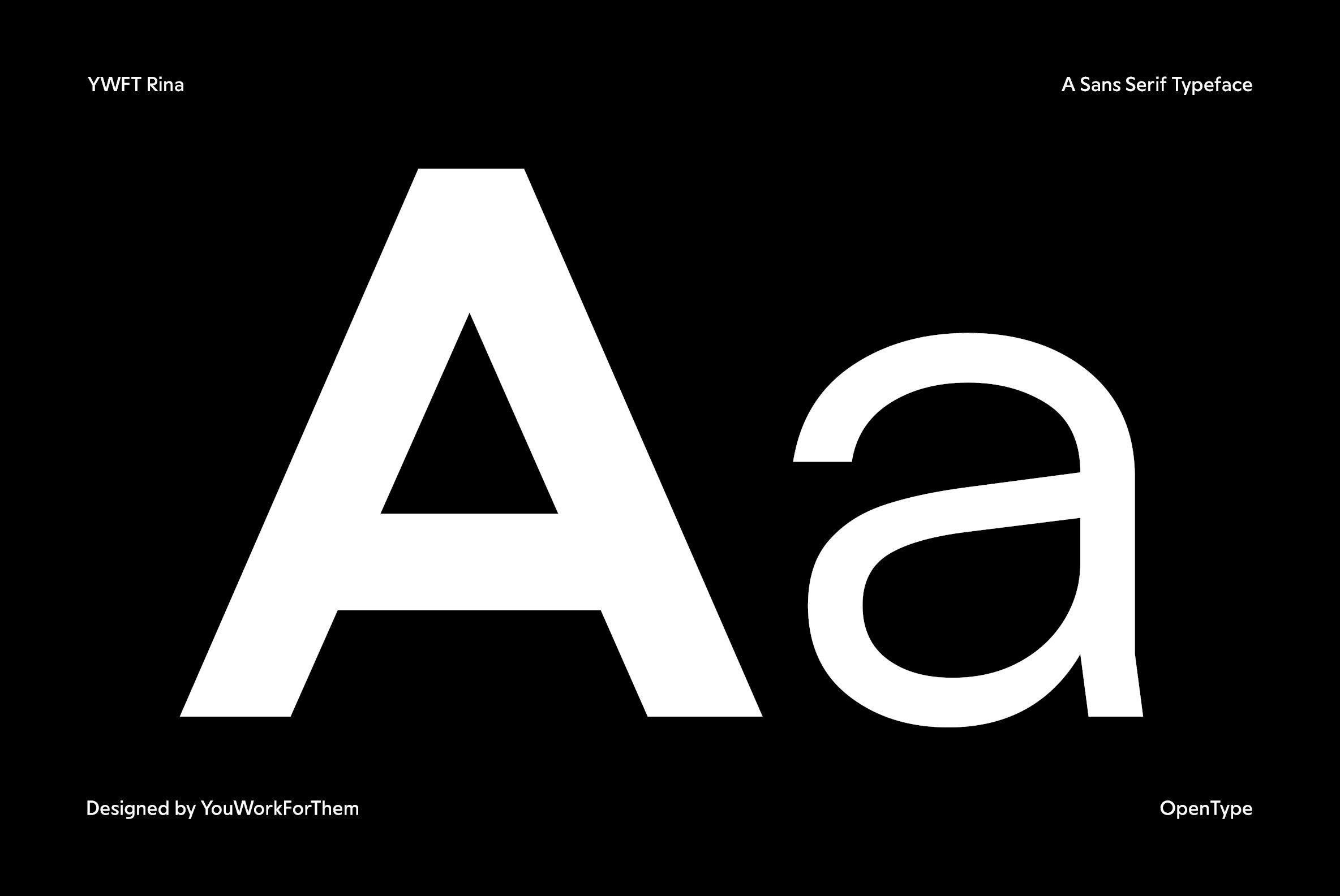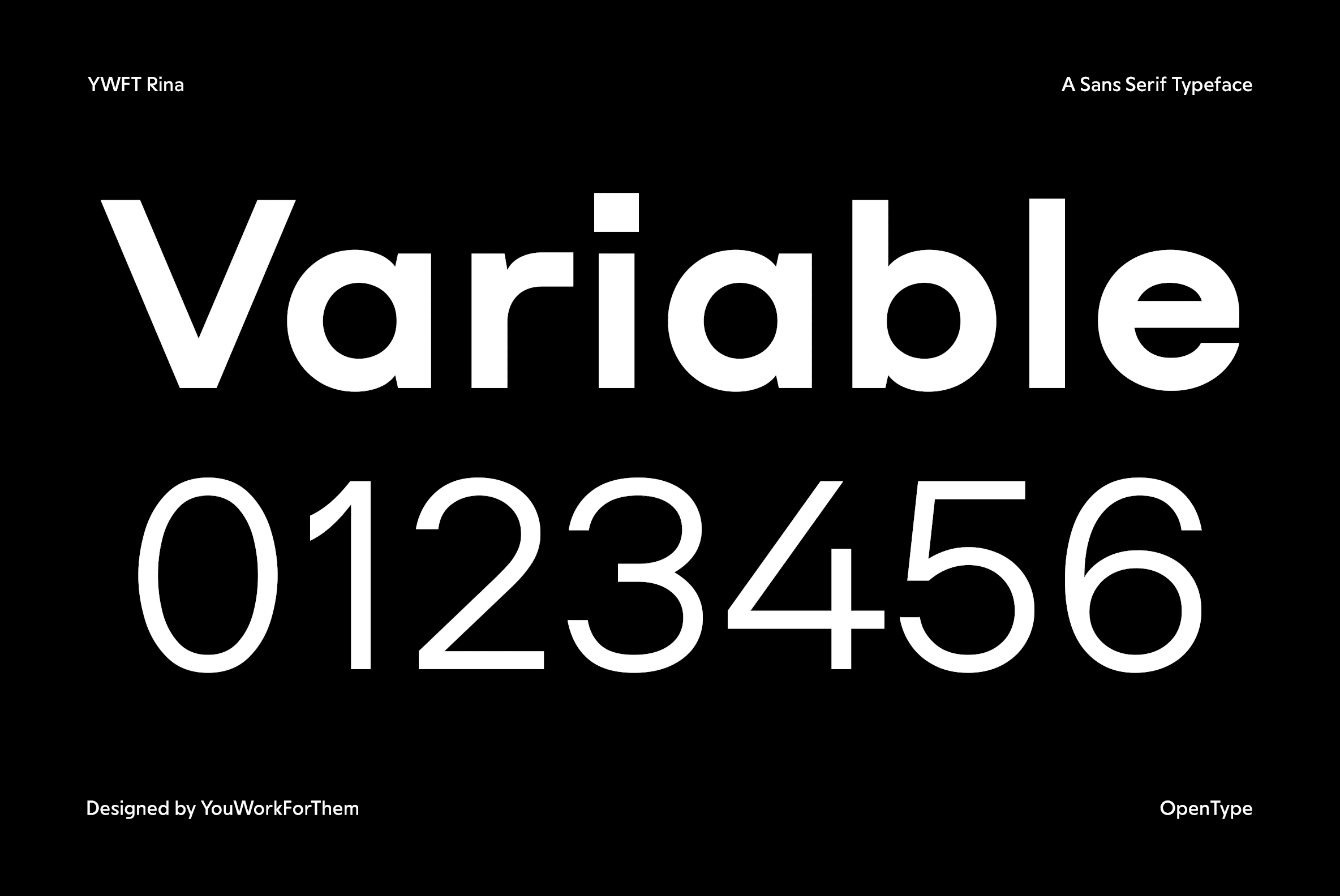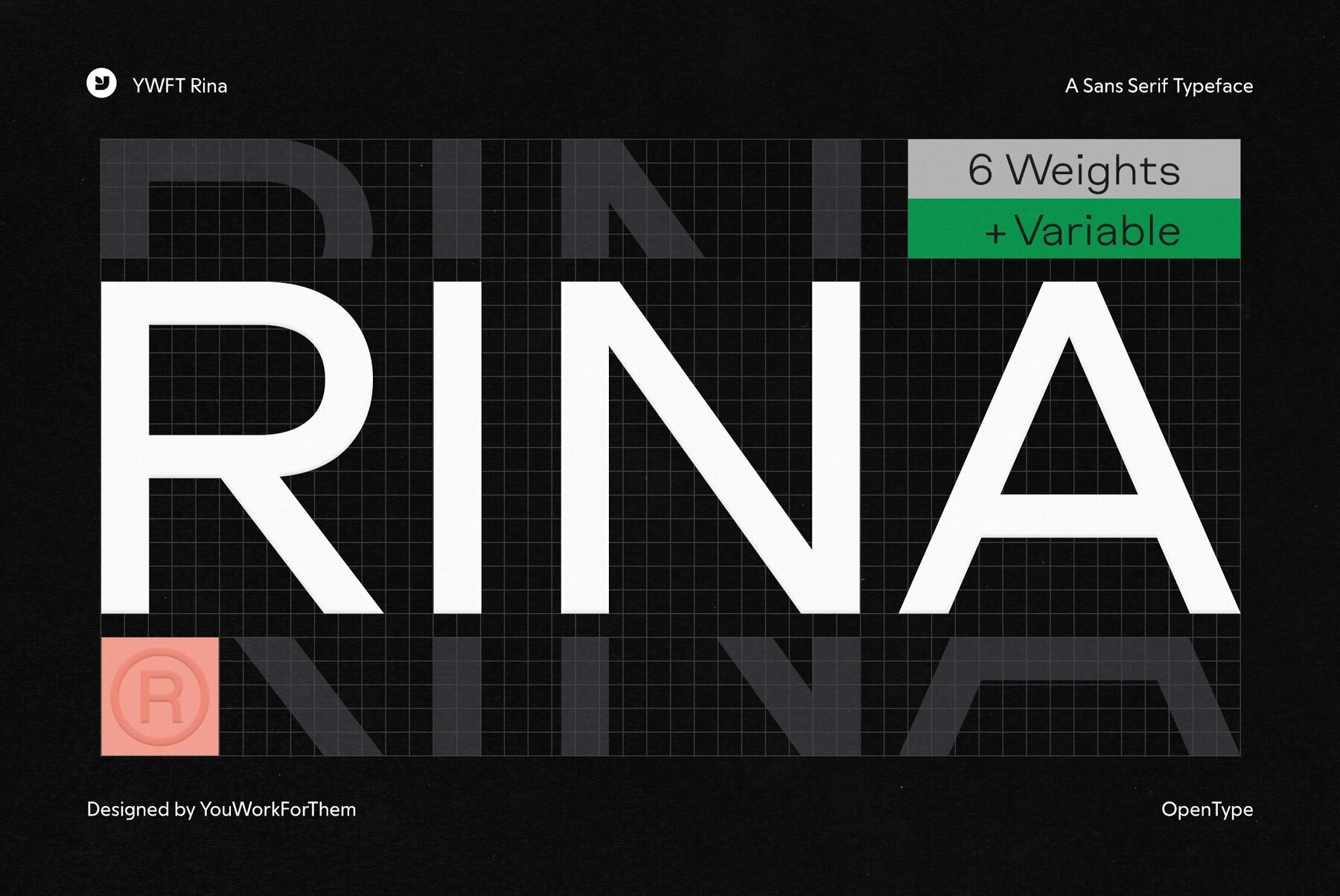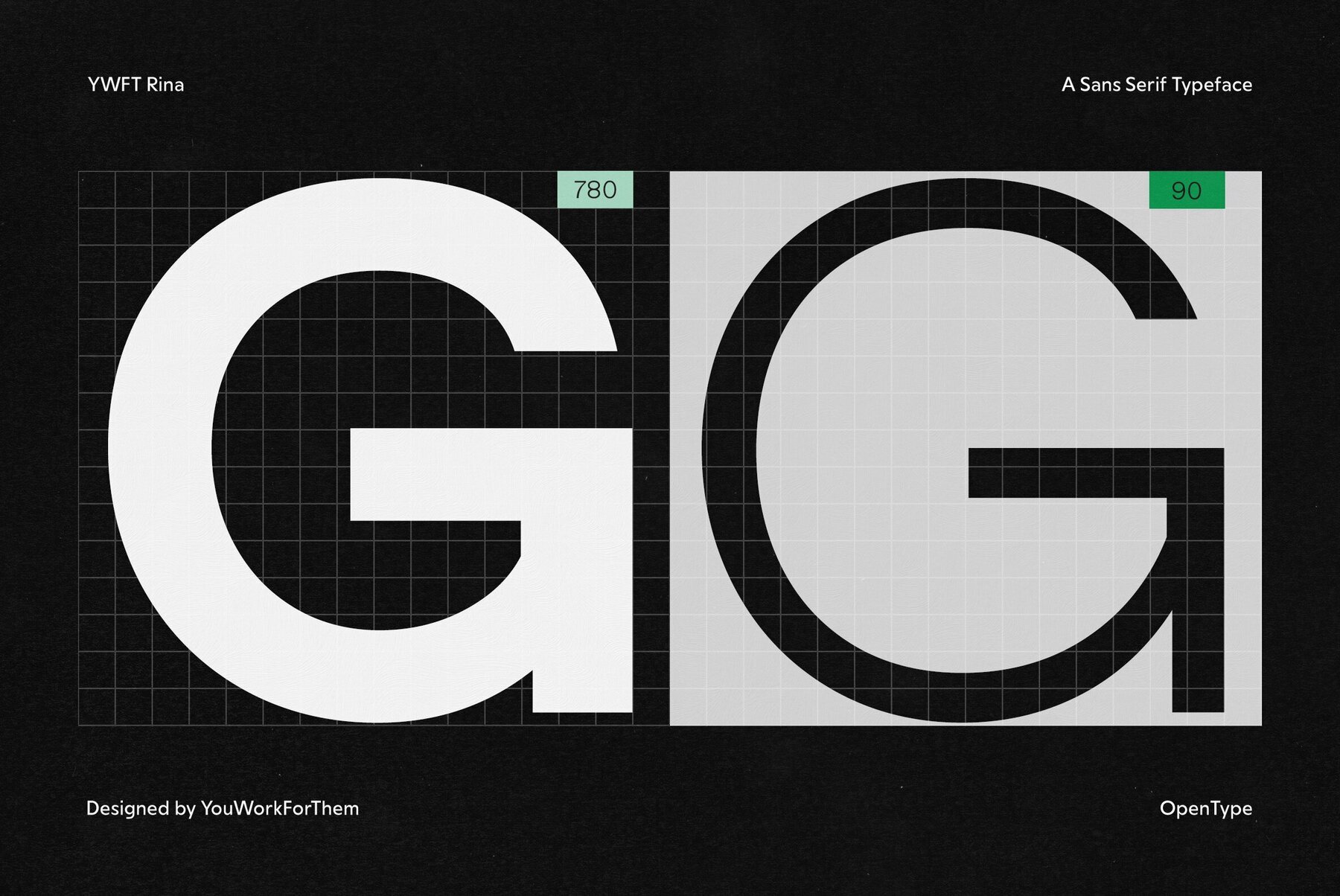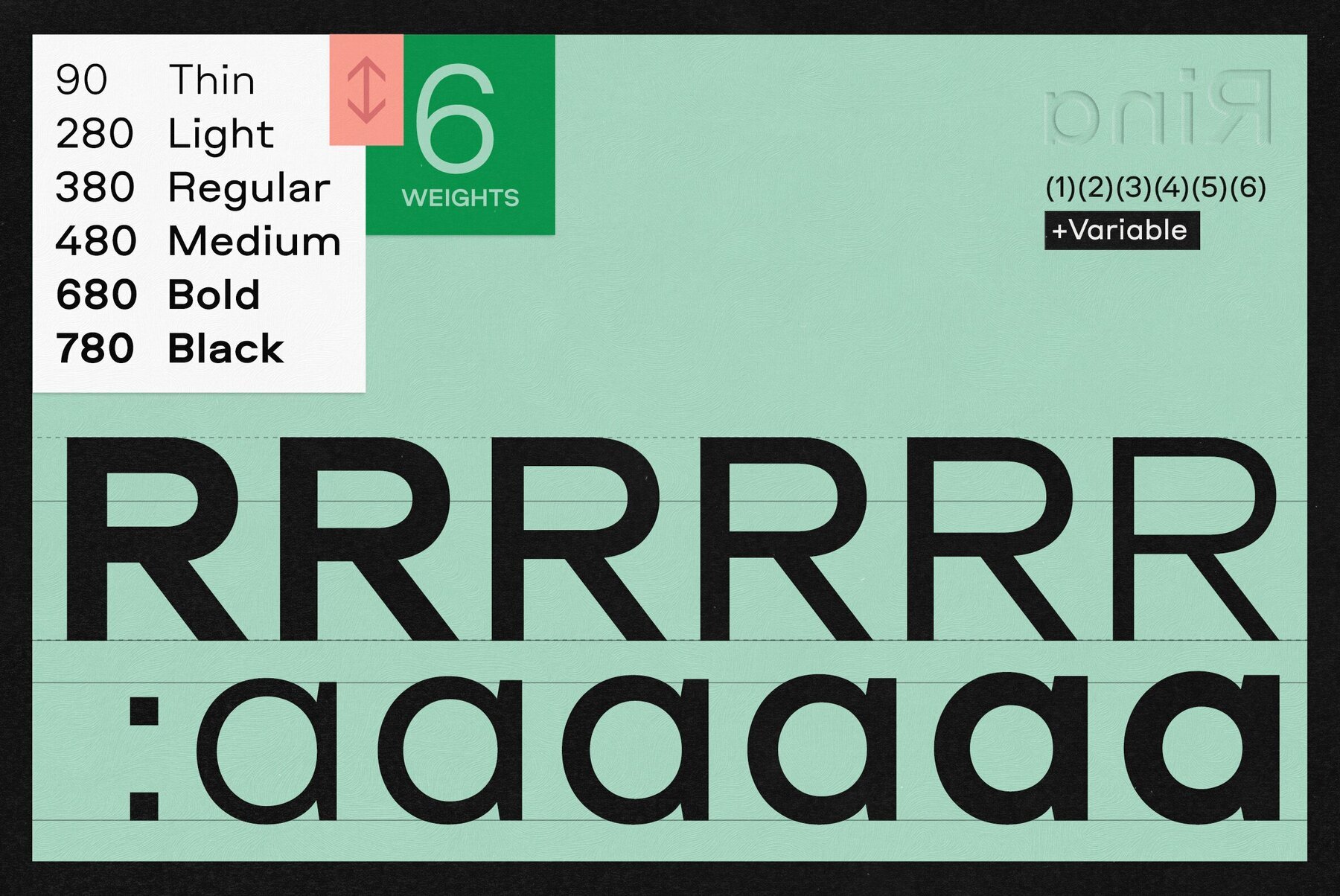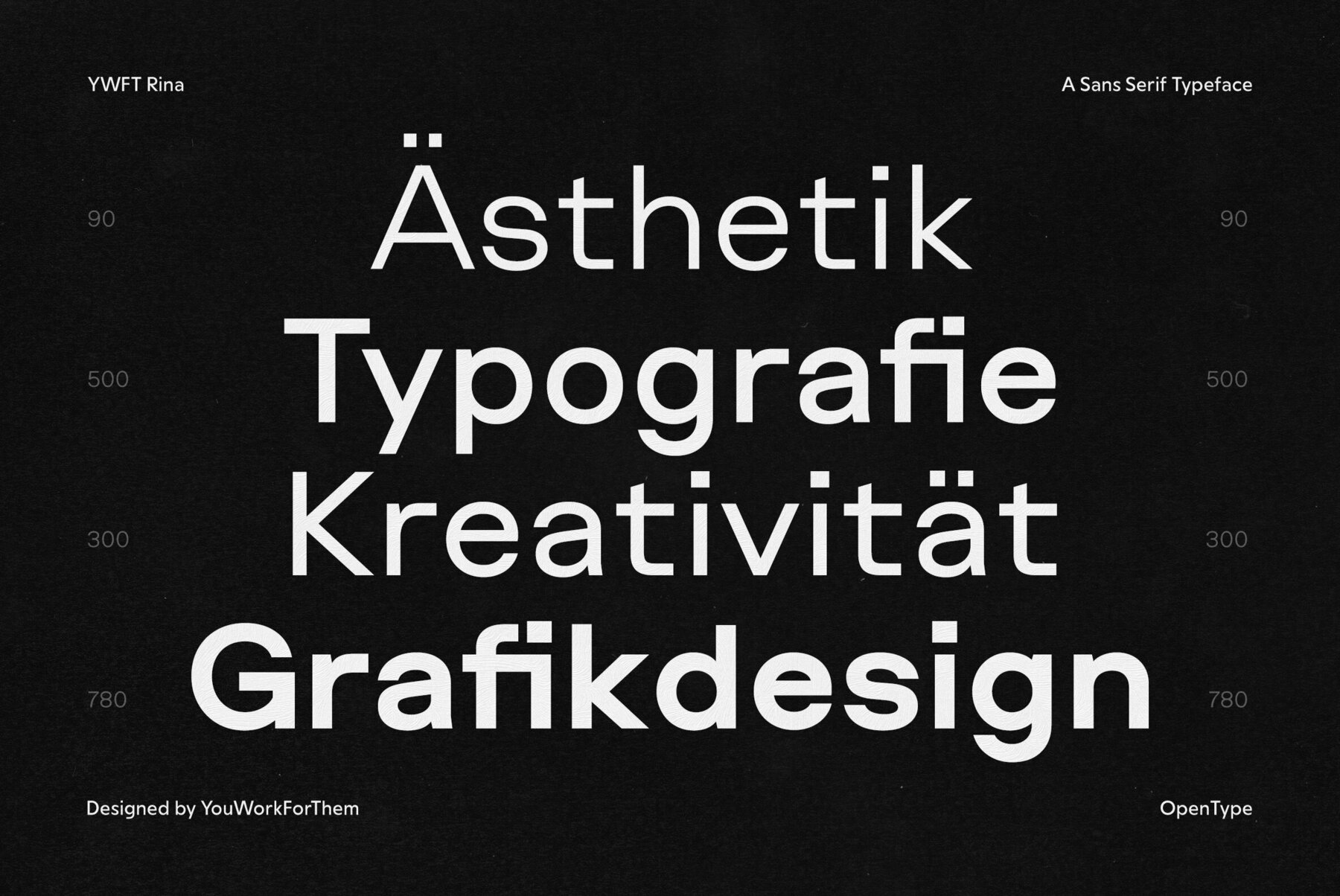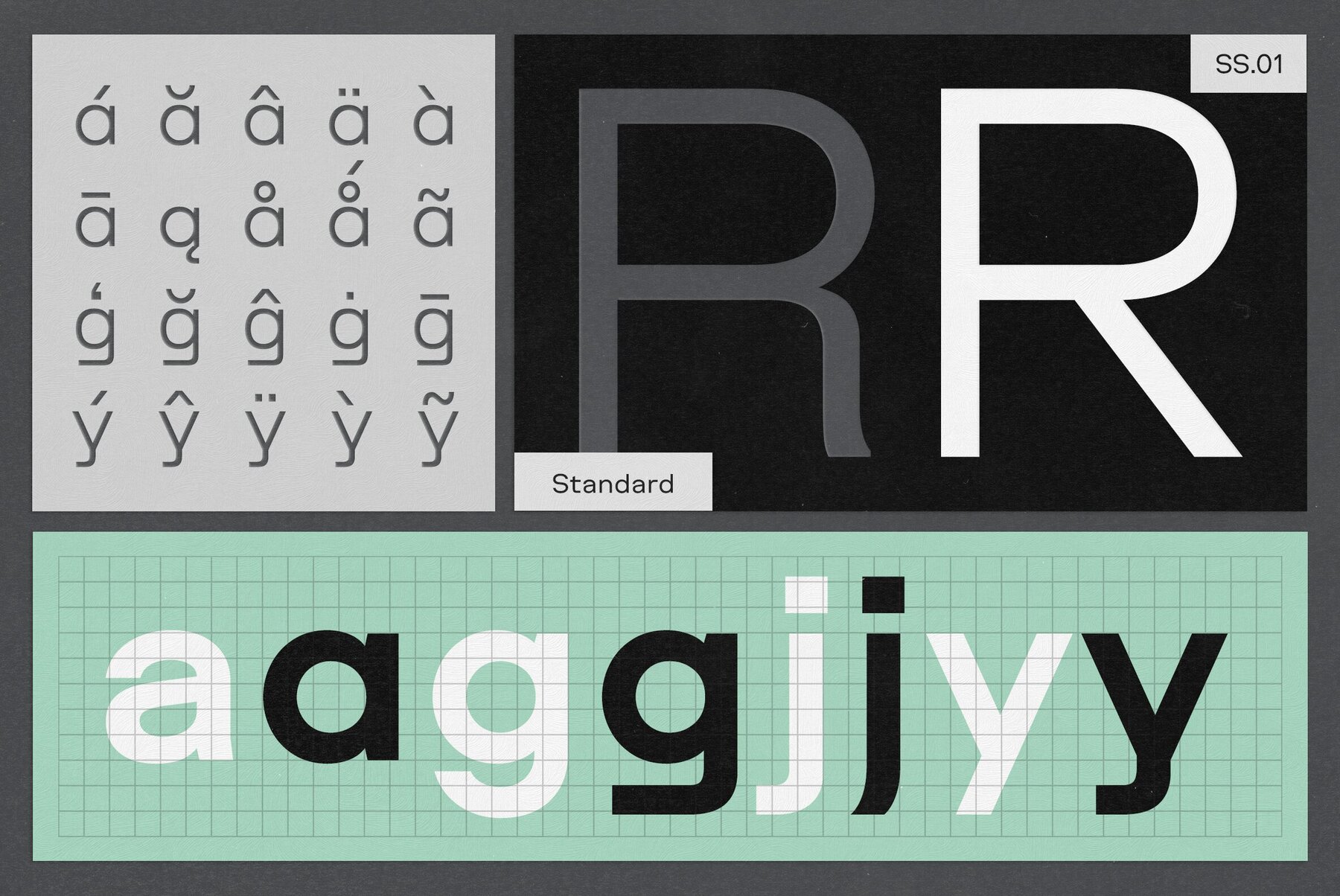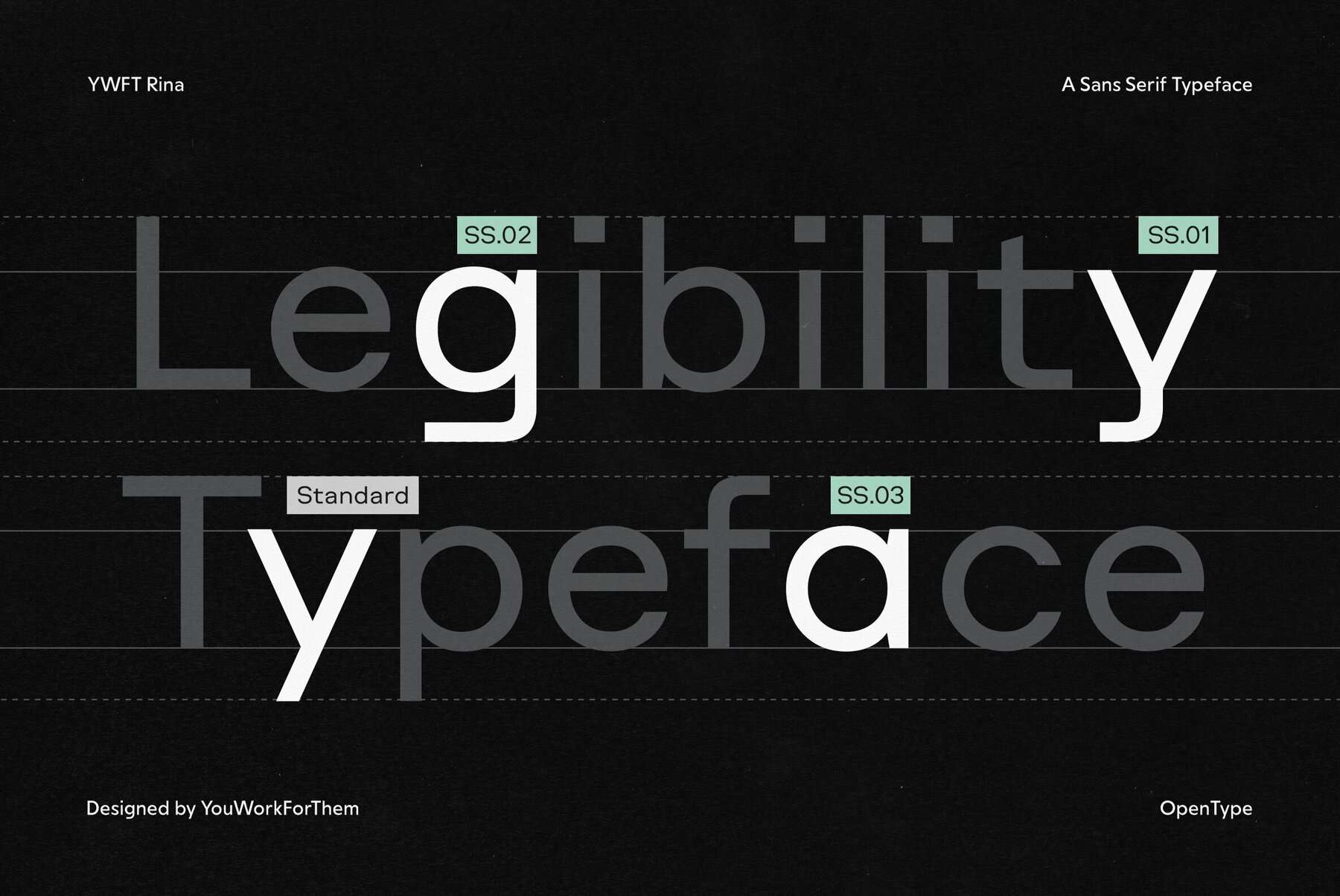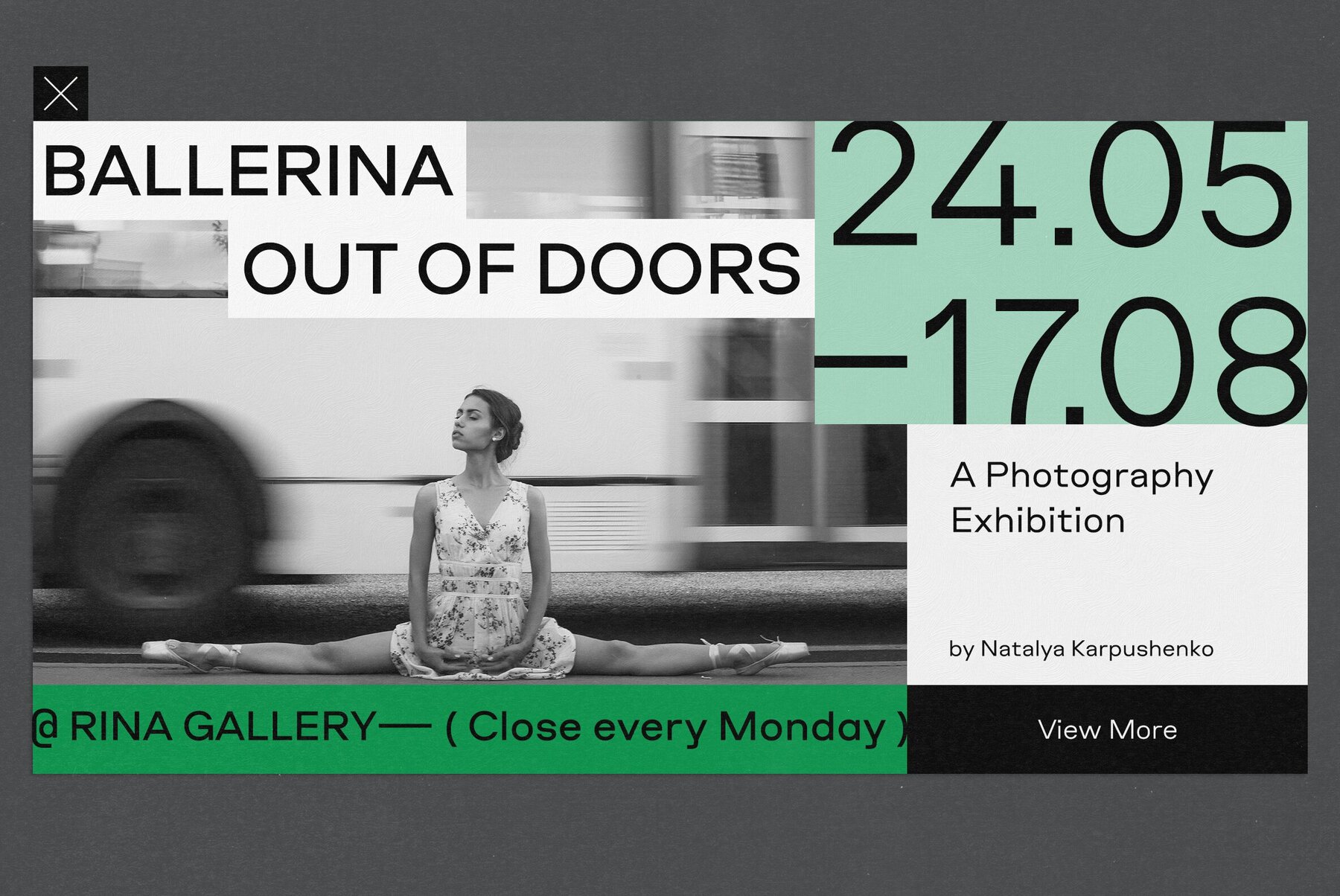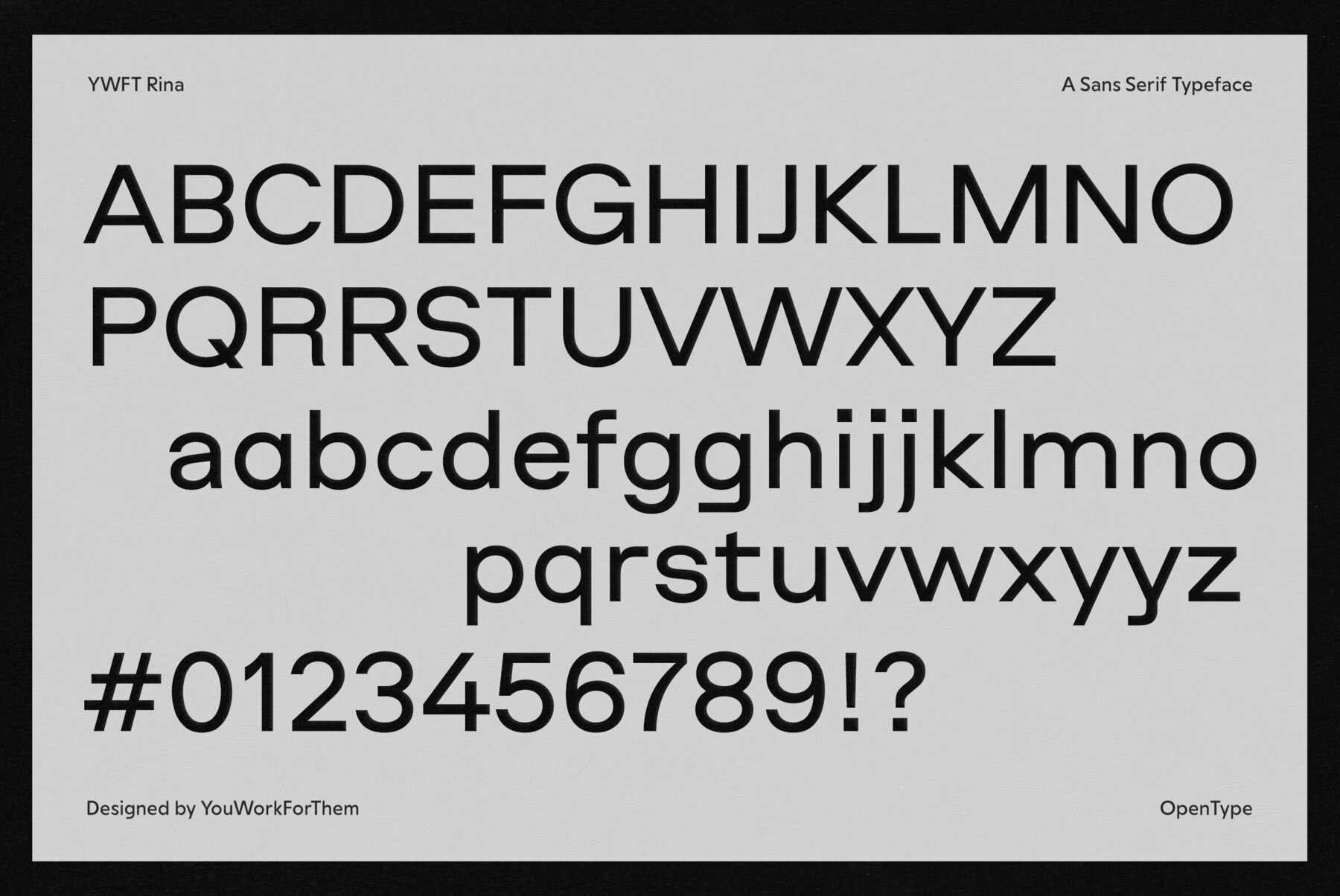
YWFT Rina Font
YWFT Rina, a geometric sans-serif font design, is crafted for those who seek clarity and modernity. Available in six optical weights—Thin, Light, Regular, Medium, Bold, and Black—alongside a variable font option, Rina provides a sophisticated alternative to standard system fonts. Its wider proportions and sharper lowercase shapes create a contemporary feel, with rounded geometry enhancing its modern presence. Purposefully designed for precision, YWFT Rina offers open spacing and balanced construction, making it perfect for interface design, branding, and editorial layouts. Unlike ubiquitous options like Roboto, which can feel compressed, Rina allows for generous space, delivering a clean and confident typographic hierarchy. It is well-suited for tech startups, digital products, and forward-thinking projects that prefer a neutral yet distinct base. YWFT Rina is a studio-crafted typeface by YouWorkForThem, offering accessibility and value without subscription fees. This font family brings visual clarity with a touch of personality, making it an ideal choice for developing brand systems or creating interface copy. Additional products used for slideshow images:YWFT Rina: A Geometric Sans Built for Next Generation Brands